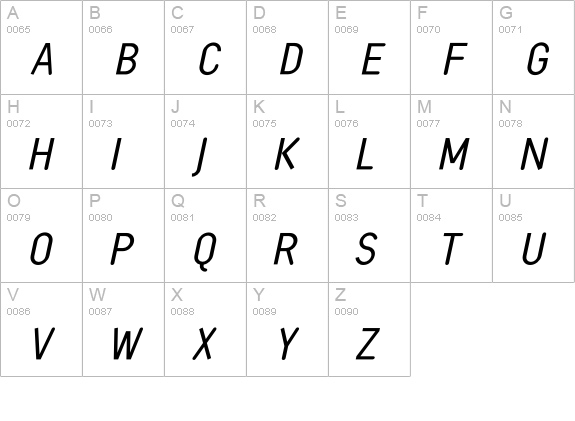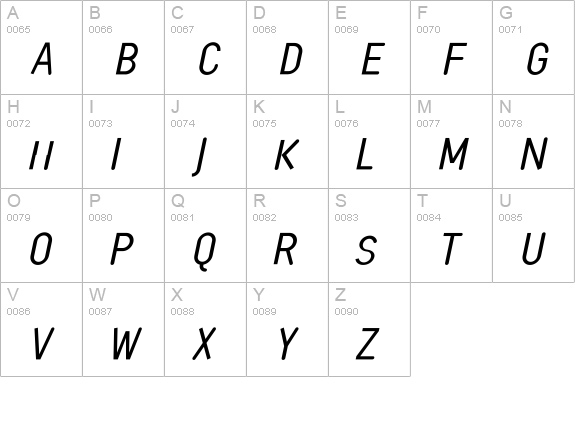
Monolein-Slanted Font Details
Monolein-Slanted font is a modern and stylish typeface that exudes sophistication and elegance. Its sleek design with slanted accents adds a touch of flair to any design project, making it perfect for creating eye-catching headings, logos, and branding materials. The clean lines and smooth curves of Monolein-Slanted font give it a contemporary and professional look that is sure to impress. The best part about Monolein-Slanted font is that it is completely free to download at FontsMarket.com. This means you can easily add this versatile font to your collection without having to spend a dime. Whether you're a graphic designer, web developer, or just someone looking to enhance their projects with a stylish font, Monolein-Slanted font is a fantastic choice that won't break the bank. Download it today and elevate your designs with this exceptional typeface.